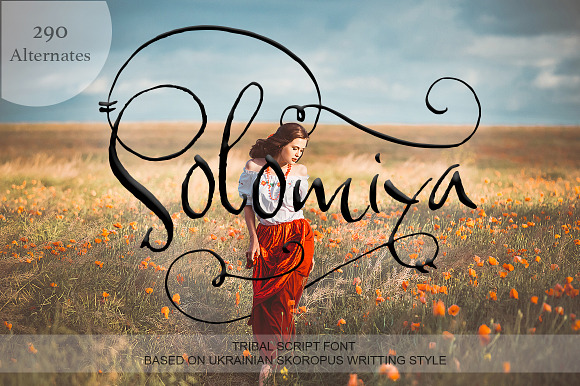
Solomiya.Tribal script font.
Solomiya Tribal Script Font is ideal for ethnic jewelry branding, cultural festival graphics, tribal art designs, heritage craft packaging, indigenous artwork projects, ceremonial invitations, spiritual wellness brands, and authentic cultural documentation.
This exciting Solomiya Tribal Script Font connects viewers with ancient wisdom and cultural heritage through its distinctive tribal-inspired letterforms that honor traditional artistic expressions and indigenous design principles. The font's authentic character and spiritual essence make it an exceptional choice for projects requiring cultural respect, ancestral connection, and tribal authenticity that resonates with audiences appreciating indigenous arts and traditional craftsmanship.
The Solomiya Tribal Script Font family features multiple ceremonial variations including Regular, Bold, Light, Ornamental, Sacred, and Ritual versions, providing designers with comprehensive options for creating respectful cultural brand communications and spiritually inspired typographic compositions with authentic tribal heritage.
Honor cultural heritage with Solomiya Tribal Script Font Free Download - a respectfully crafted script typeface that celebrates the artistic traditions and spiritual wisdom of tribal cultures. This versatile font combines cultural authenticity with contemporary functionality, making it perfect for brands and projects that need to communicate heritage respect, spiritual connection, and authentic cultural appreciation.
The tribal character of Solomiya Tribal Script Font makes it particularly valuable for cultural organizations, artisanal crafters, spiritual wellness brands, and heritage preservation groups that need to convey authenticity, cultural respect, and ancestral wisdom. Its sacred styling appeals to audiences who appreciate indigenous arts, traditional craftsmanship, and spiritual cultural connections.
Cultural design specialists choose Solomiya Tribal Script Font for its authentic tribal atmosphere and exceptional spiritual resonance across various heritage applications. The font maintains its sacred character from small ceremonial materials to large cultural installations, ensuring consistent cultural respect and tribal authenticity throughout all heritage communications.
The distinctive personality of Solomiya Tribal Script Font creates immediate emotional connections through powerful associations with ancestral wisdom, cultural heritage, and spiritual traditions. This makes it invaluable for brands seeking to leverage cultural authenticity and tribal respect for marketing campaigns and heritage-focused brand positioning strategies.
Heritage-conscious brands utilize Solomiya Tribal Script Font to establish authentic identities that communicate cultural respect, ancestral wisdom, and tribal heritage in contemporary markets. The typeface's tribal appeal helps organizations differentiate themselves while attracting consumers who value cultural authenticity, traditional craftsmanship, and spiritual heritage experiences in their lifestyle and purchasing decisions.